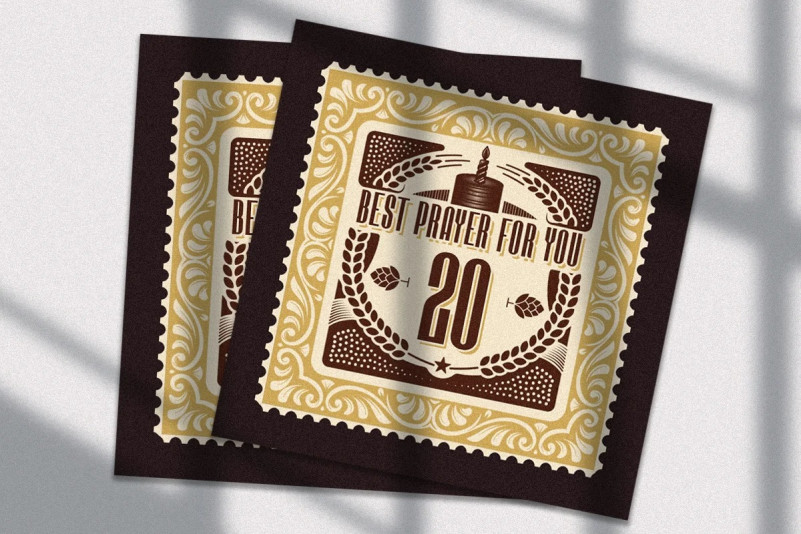
Marlone Font
Marlone Font is a display typeface inspired by retro and vintage style. Suitable for any design needs : logo, branding, modern advertising design, logos, poster quote, book / cover Title, editorial design, website / blog, card, t-shirts,…